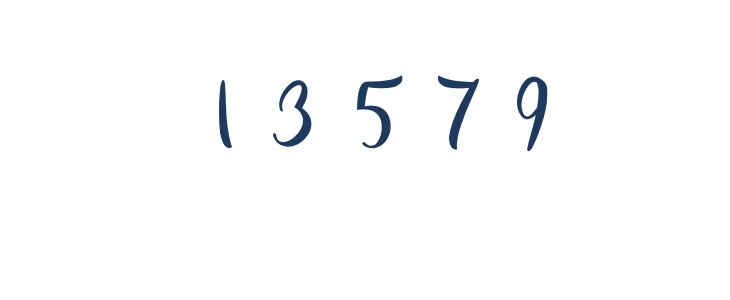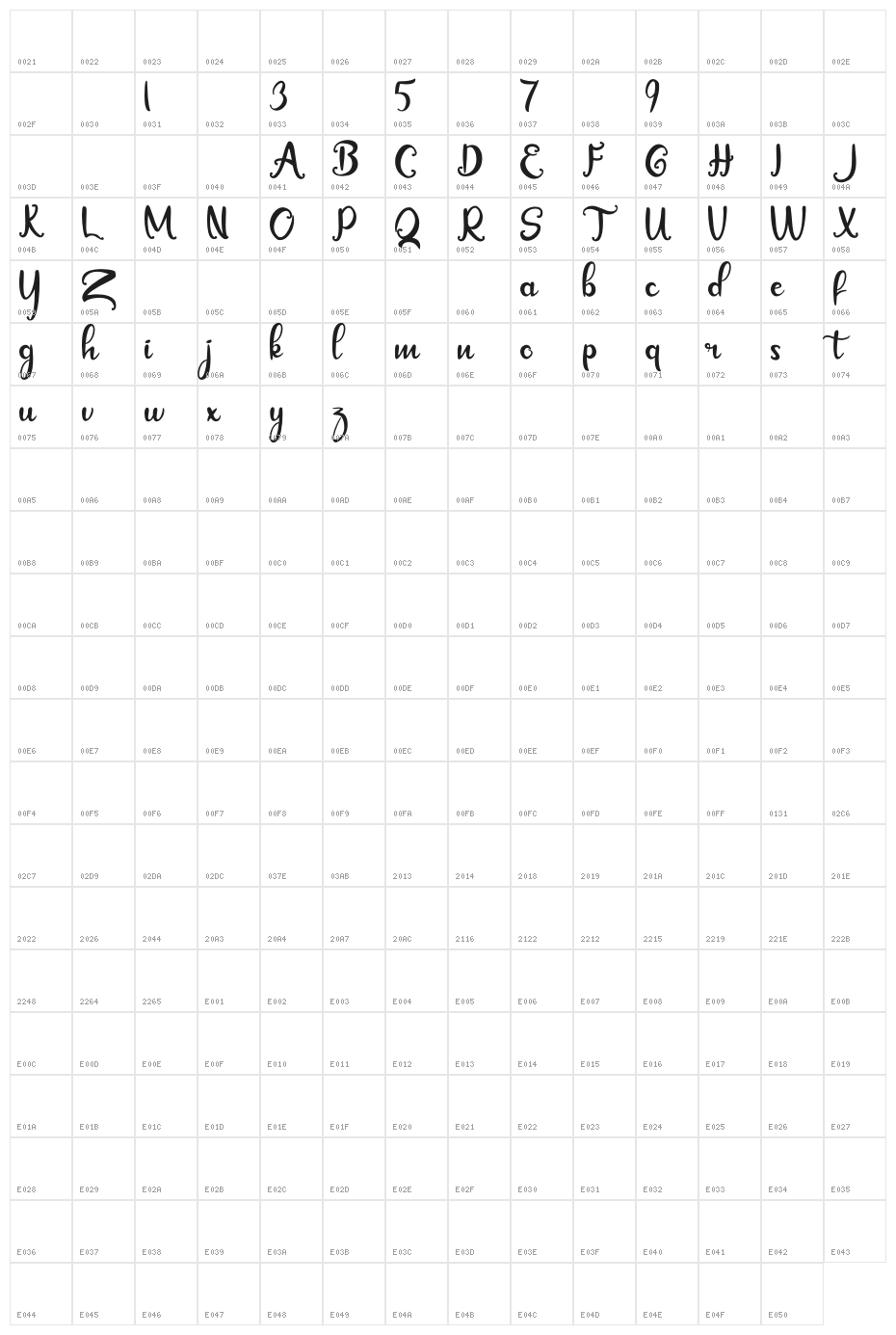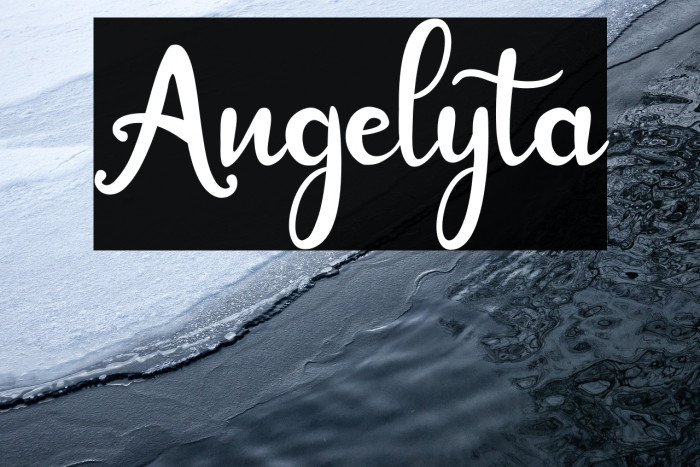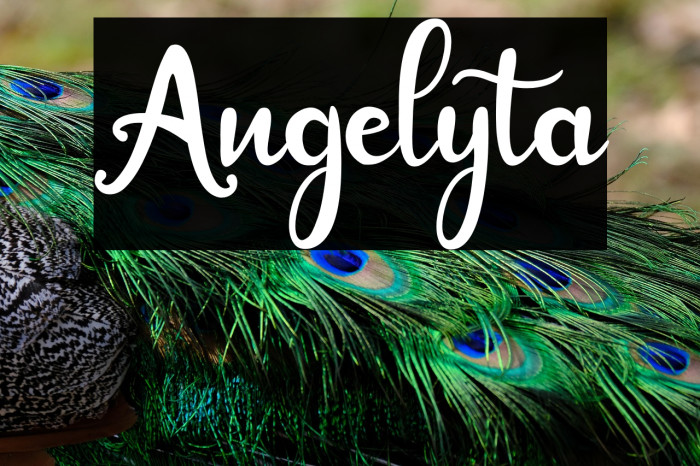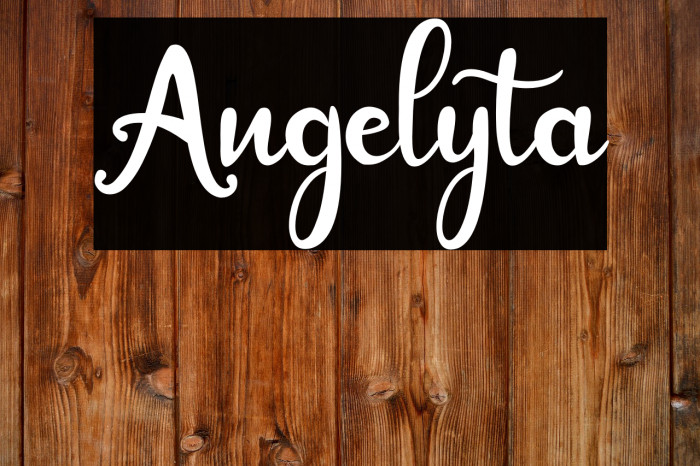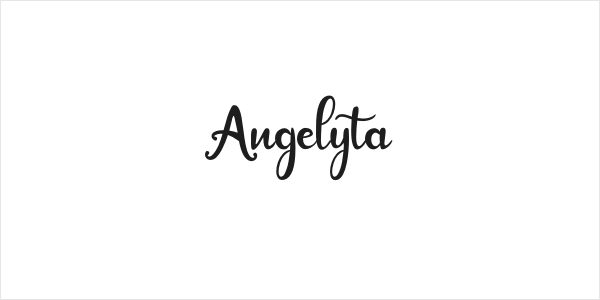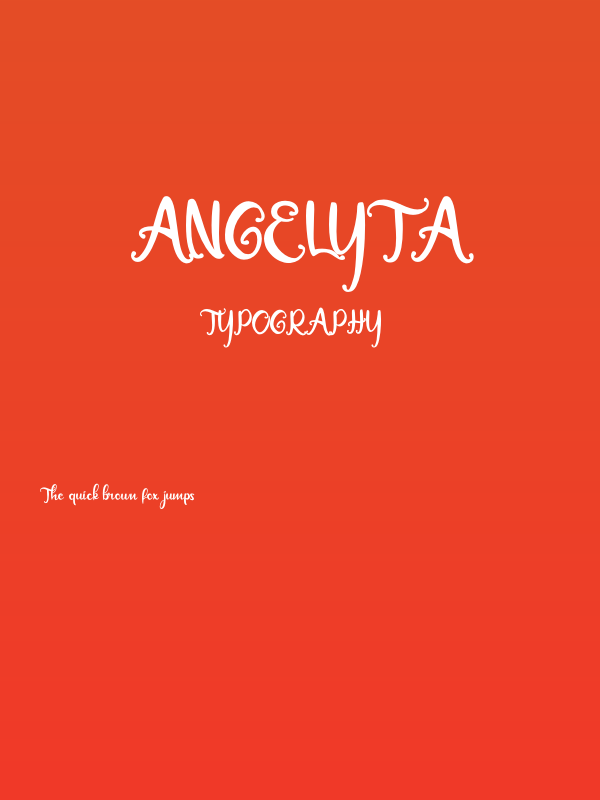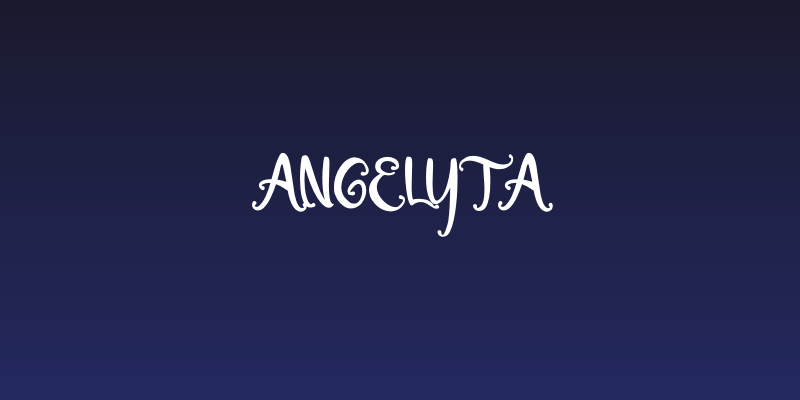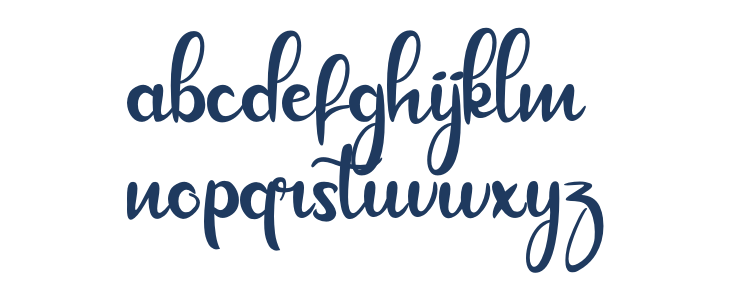
Angelyta Font
Angelyta Description
This font features a playful and elegant script style with a handwritten touch. The uppercase letters are bold and expressive, with unique flourishes that add a whimsical character. The lowercase letters maintain a consistent flow, enhancing readability while preserving the artistic flair. Numbers are stylized to match the overall aesthetic, with a slight slant that complements the letters. The special characters are creatively designed, fitting seamlessly with the rest of the font. This font is ideal for projects that require a personal and artistic touch, such as invitations, greeting cards, and branding materials.
| Proposed Projects | Ideal for invitations, greeting cards, branding, and artistic projects. |